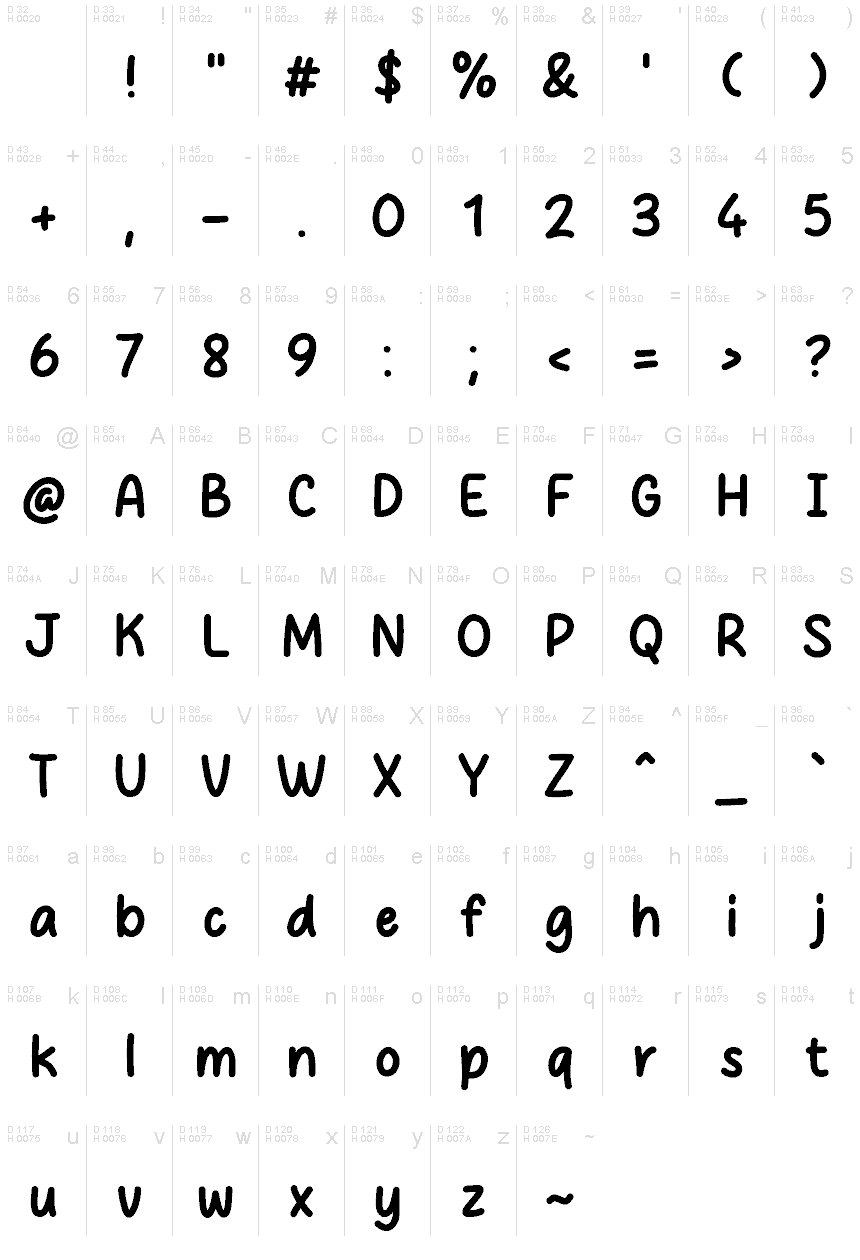
Wondercity
Wondercity font by MJType is an inviting handwritten work of art whose letters feel comfortable in so many environments. This friendly casual typeface has a modern style where smooth lines are blended with slightly thicker than usual strokes. Use it as a tool to introduce an approachable human touch in your visual projects as tiny or massive they can be.
The free handwritten font Wondercity works wonders when used in posters, greeting cards, brochures, magazines, covers, food-related ads and packages. Feel free to also insert it into your logo designs or use it for packaging labels and stickers!